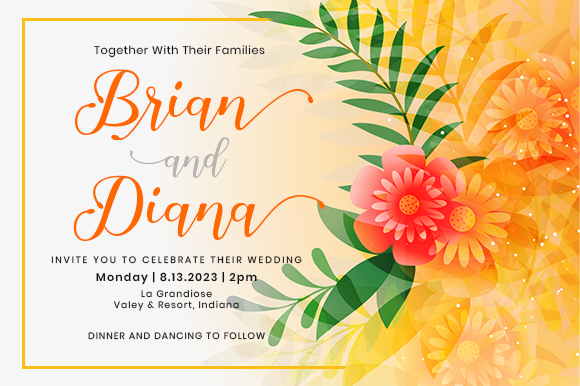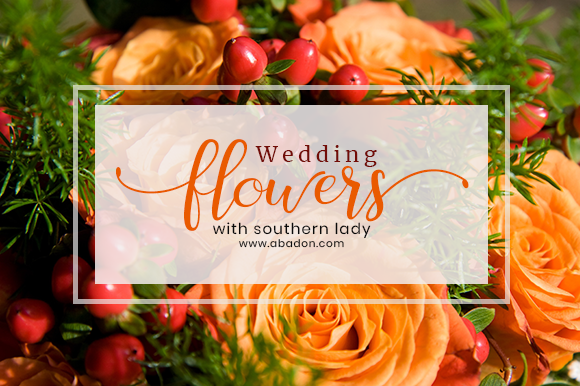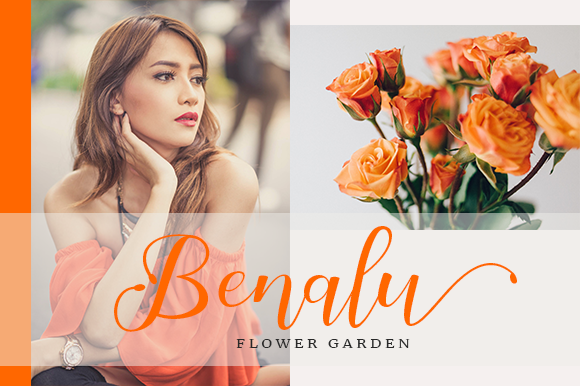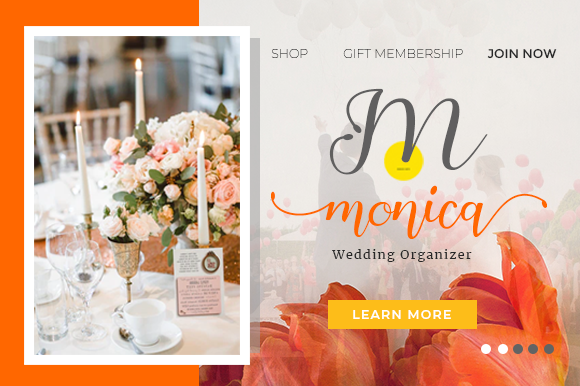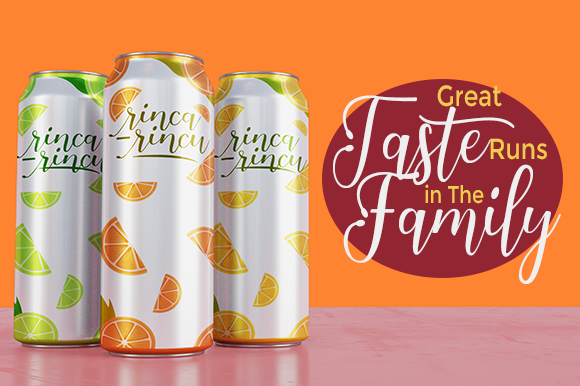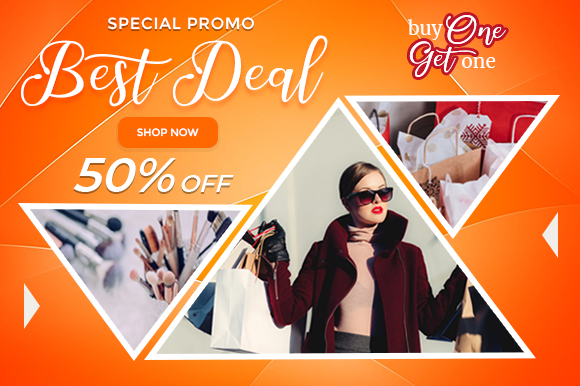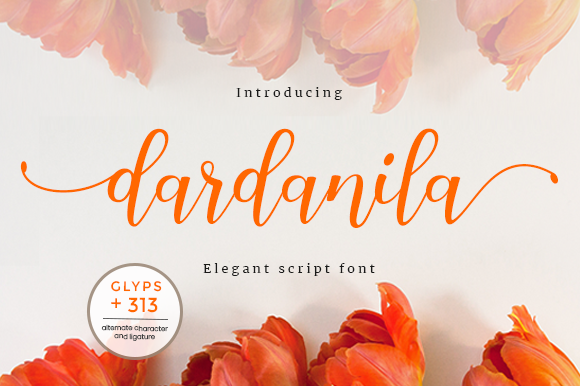
Dardanila Font: The Sweet and Soft Hand-Lettered Script Font for Stunning Designs
Are you a designer or crafter looking for a font that can add a touch of sweetness and softness to your designs? Look no further than the Dardanila Font. This hand-lettered script font is perfect for creating stunning calligraphy art, and its playful rounded characters make it a joy to use. In this article, we’ll take a closer look at the Dardanila Font, its features, and how you can use it to create gorgeous designs.
What is Dardanila Font?
Dardanila is a sweet, soft hand-lettered script font that is perfect for creating beautiful designs. Its playful rounded characters make it a great choice for designers and crafters who want to add a touch of whimsy to their work. The font is designed to be easy to read and use, making it perfect for a variety of design projects.
Key Features of Dardanila Font
The Dardanila Font comes with a range of features that make it a great choice for designers and crafters. Some of its key features include:
- PUA Encoded Characters: The Dardanila Font comes packed with PUA encoded characters, which allow you to add a decorative touch to your designs within seconds.
- Authentic Feel: The Dardanila Font has an authentic feel that makes it perfect for creating designs that look like they were written by hand.
Uses for Dardanila Font
The Dardanila Font is a versatile font that can be used for a variety of design projects. Some of the ways you can use it include:
- Wedding Invitations: The Dardanila Font is perfect for creating beautiful wedding invitations that are both elegant and playful.
- Stationary Art: You can use the Dardanila Font to create stunning stationary art, including notecards, journals, and more.
- Social Media Posts: The font is great for creating eye-catching social media posts that will grab the attention of your followers.
- Greeting Cards: The Dardanila Font is perfect for creating cute greeting cards for special occasions.
Tips for Using Dardanila Font
Here are a few tips for using the Dardanila Font in your designs:
- Experiment with Different Sizes: The Dardanila Font looks great in a variety of sizes, so don’t be afraid to experiment to find the perfect size for your design.
- Pair it with Other Fonts: You can pair the Dardanila Font with other fonts to create a unique and interesting design.
- Use it for Headings and Titles: The Dardanila Font is perfect for use in headings and titles, where its playful rounded characters can really shine.
The Dardanila Font is a sweet and soft hand-lettered script font that is perfect for designers and crafters who want to add a touch of whimsy to their designs. With its PUA encoded characters, multi-format support, and authentic feel, it’s a great choice for a variety of design projects. Whether you’re creating wedding invitations, stationary art, social media posts, or greeting cards, the Dardanila Font is sure to impress.